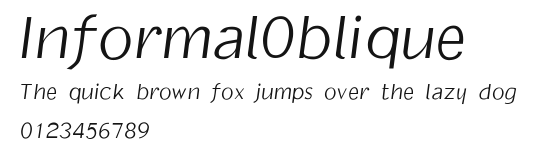
• Font Name: InformalOblique
• Full Font Name: InformalOblique
• PostScript Name: InformalOblique
About InformalOblique.ttf
InformalOblique.ttf is a modern, elegant sans-serif font designed for ultimate readability and visual harmony. Perfect for branding, headlines, web design, and print materials.